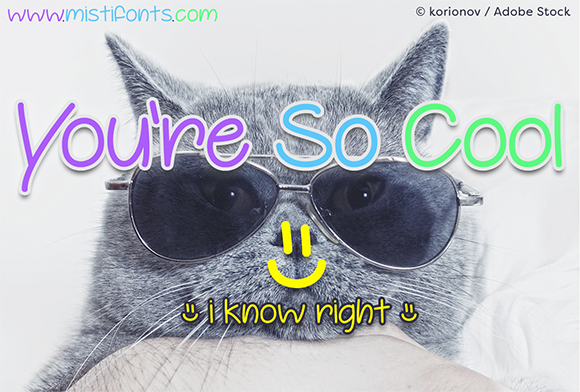
Introducing You're So Cool Font, the ultimate handwritten font that oozes charm and personality, ready to transform your creative visions into captivating realities. Created by the talented Misti, this font is a true masterpiece, meticulously crafted to bring a touch of uniqueness and flair to your designs.
With its playful script style and an array of special symbols, including a delightful smiley face when you type an asterisk (*), You're So Cool Font adds a dash of whimsy and delight to your projects. Let your imagination run wild as you explore endless possibilities with this versatile font, perfect for crafting heartfelt messages, eye-catching logos, stunning invitations, cheerful social media posts, and so much more.
Immerse yourself in the world of You're So Cool Font, where creativity knows no bounds. Its free-flowing strokes and authentic handwritten feel infuse your designs with a touch of genuine warmth and connection. Whether you're a seasoned designer or just starting your creative journey, this font is your perfect companion, ready to elevate your work to new heights.